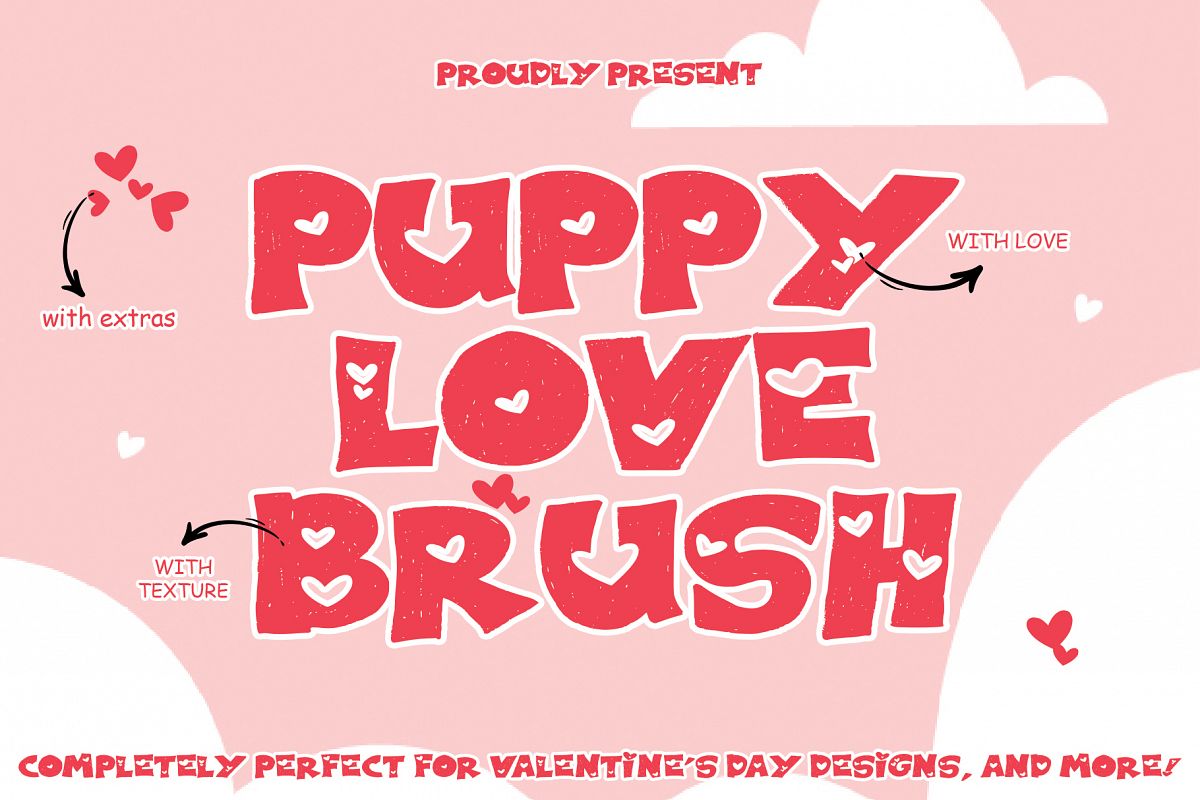
Introducing Puppy Love Brush, a new font inspired by a
couple who is in love; illustrates the power of love that radiates strongly.
completely perfect for Valentine’s Day designs, and more!
With Extras
Support multilingual; ä ö ü Ä Ö Ü
ß ¿ ¡